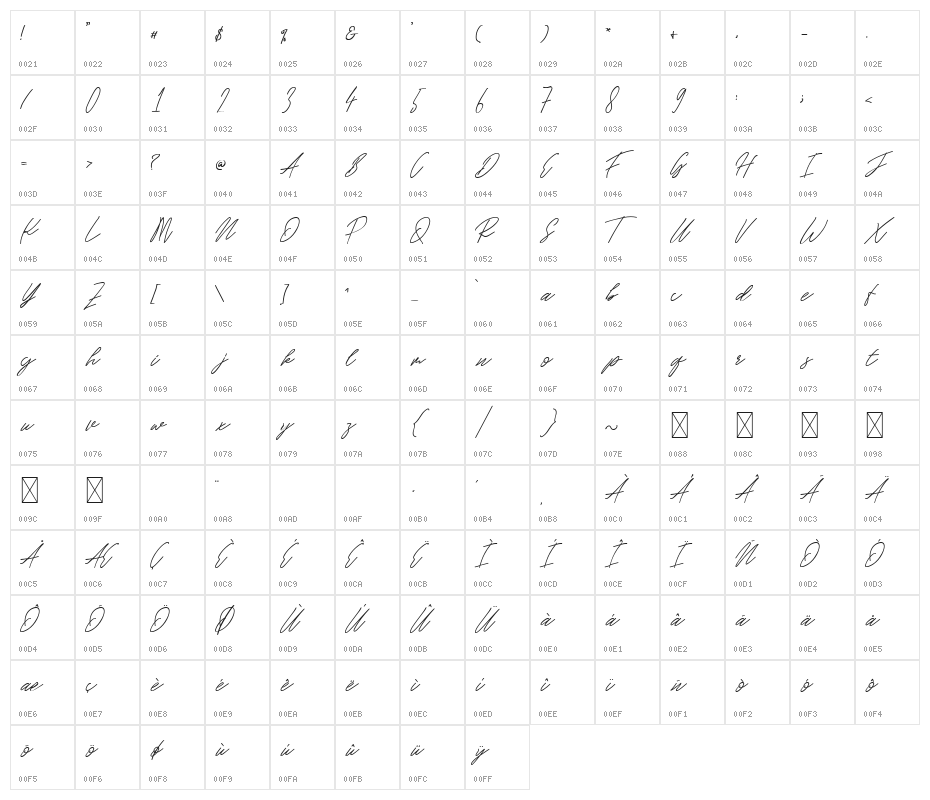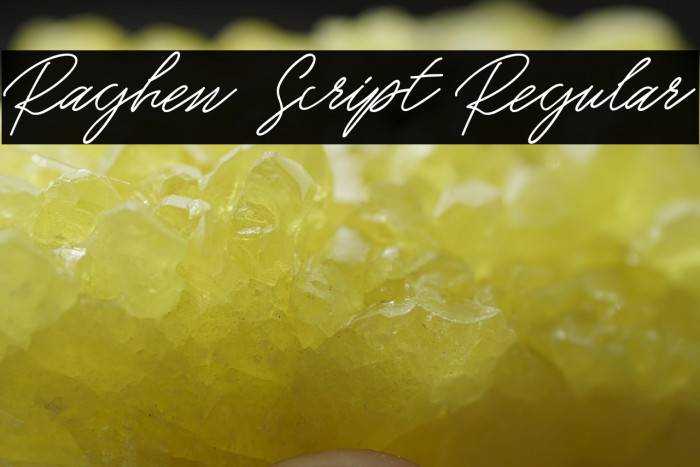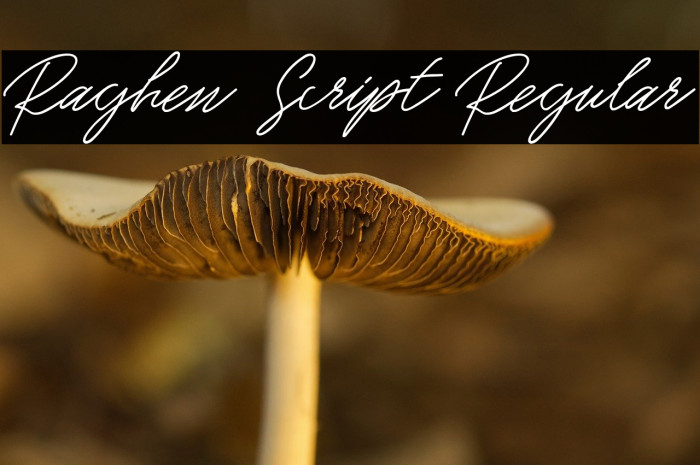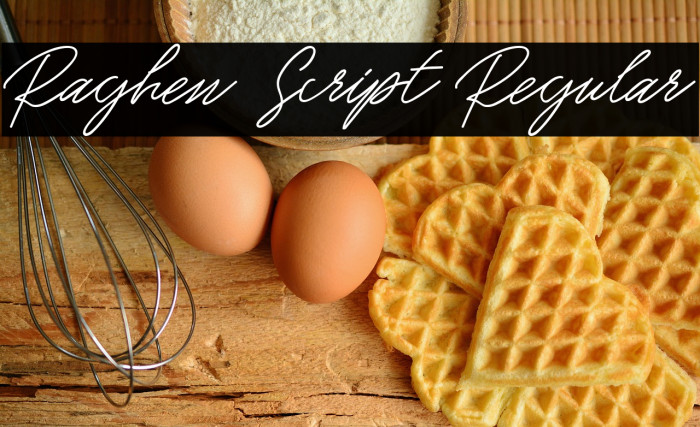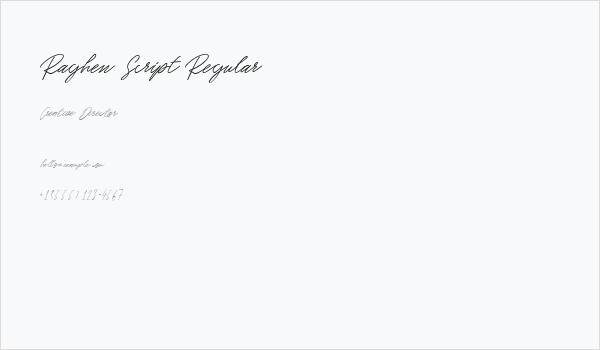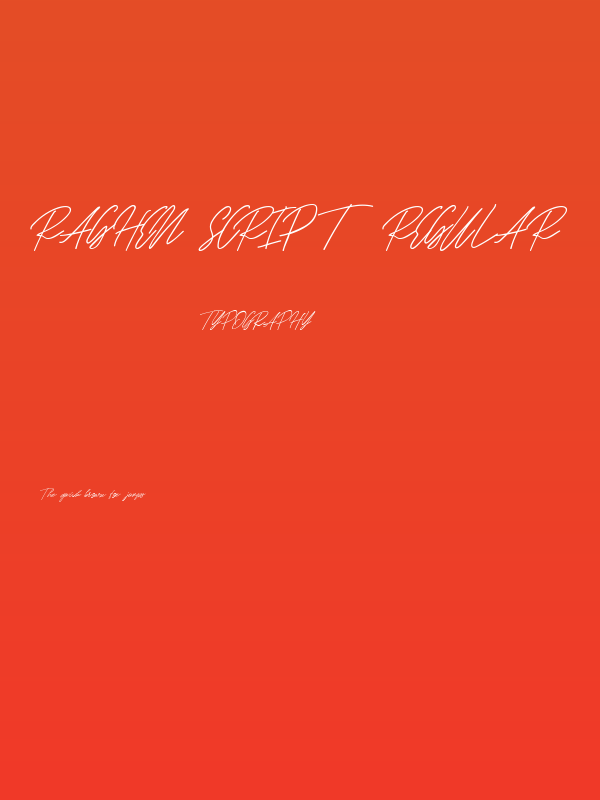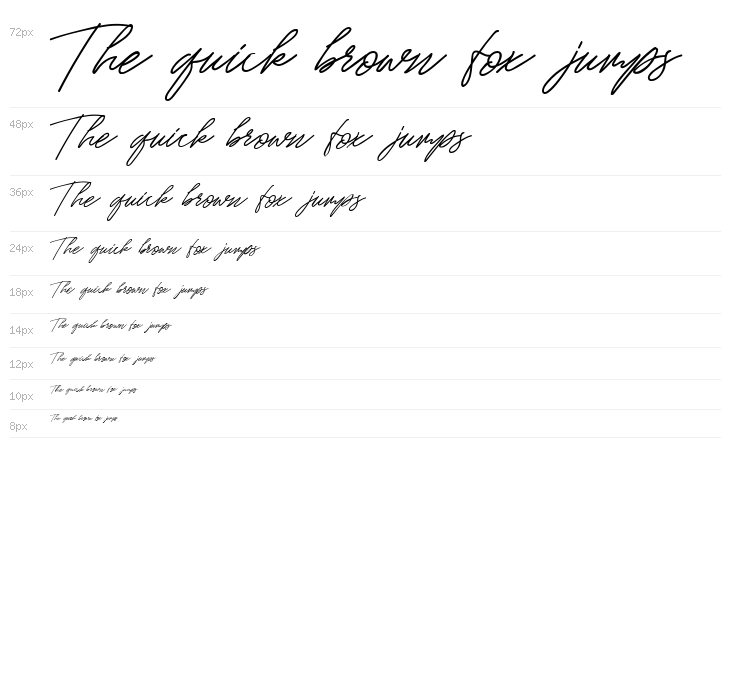
Raghen Script Regular Font
Raghen Script Regular Description
This elegant script font features a fluid, handwritten style with a natural and flowing appearance. The characters are connected, mimicking the smooth motion of cursive handwriting. The uppercase letters are slightly larger and more pronounced, while the lowercase letters maintain a consistent and graceful form. The numbers and special characters are designed to complement the overall script style, adding a touch of sophistication. This font's delicate strokes and consistent slant create a harmonious and aesthetically pleasing look.
| Overall Style | Elegant |
| Use Case | Logos, Invitations, Personal Branding |
| Proposed Projects | Ideal for wedding invitations, greeting cards, personal branding, and elegant logo designs. |